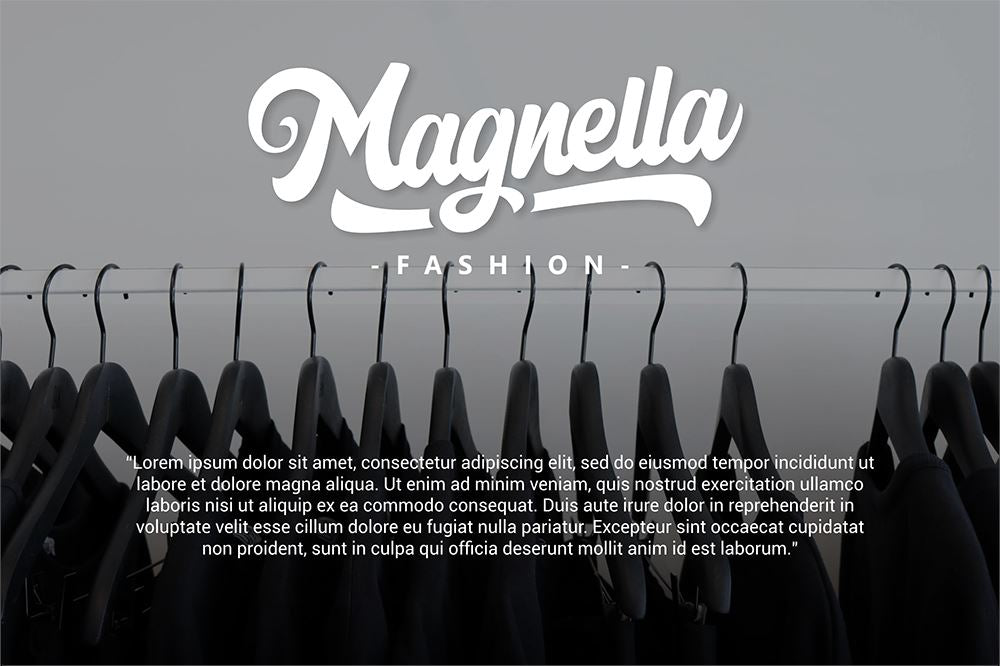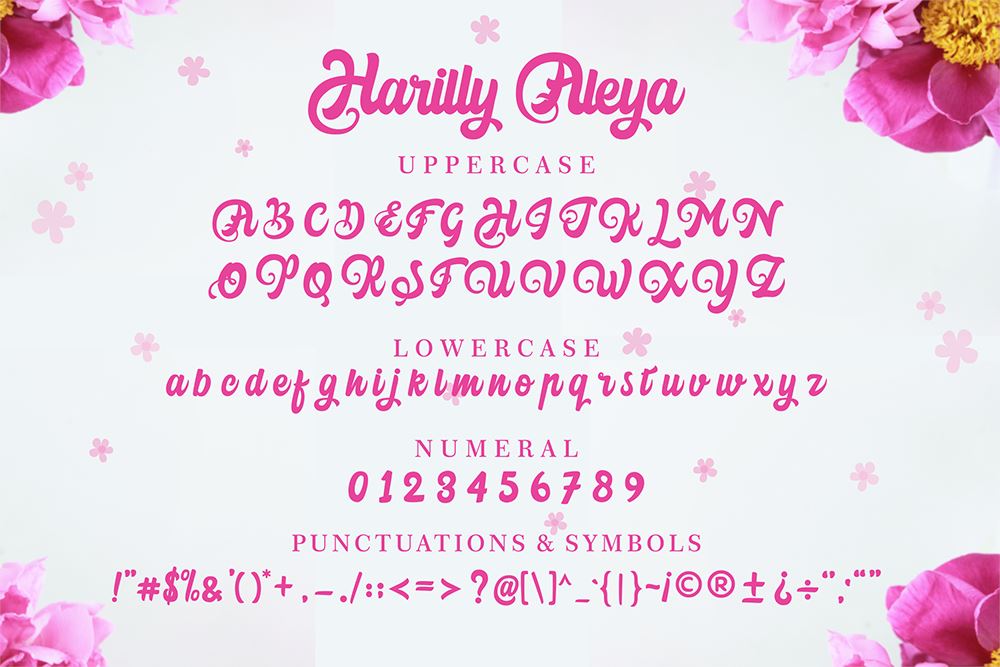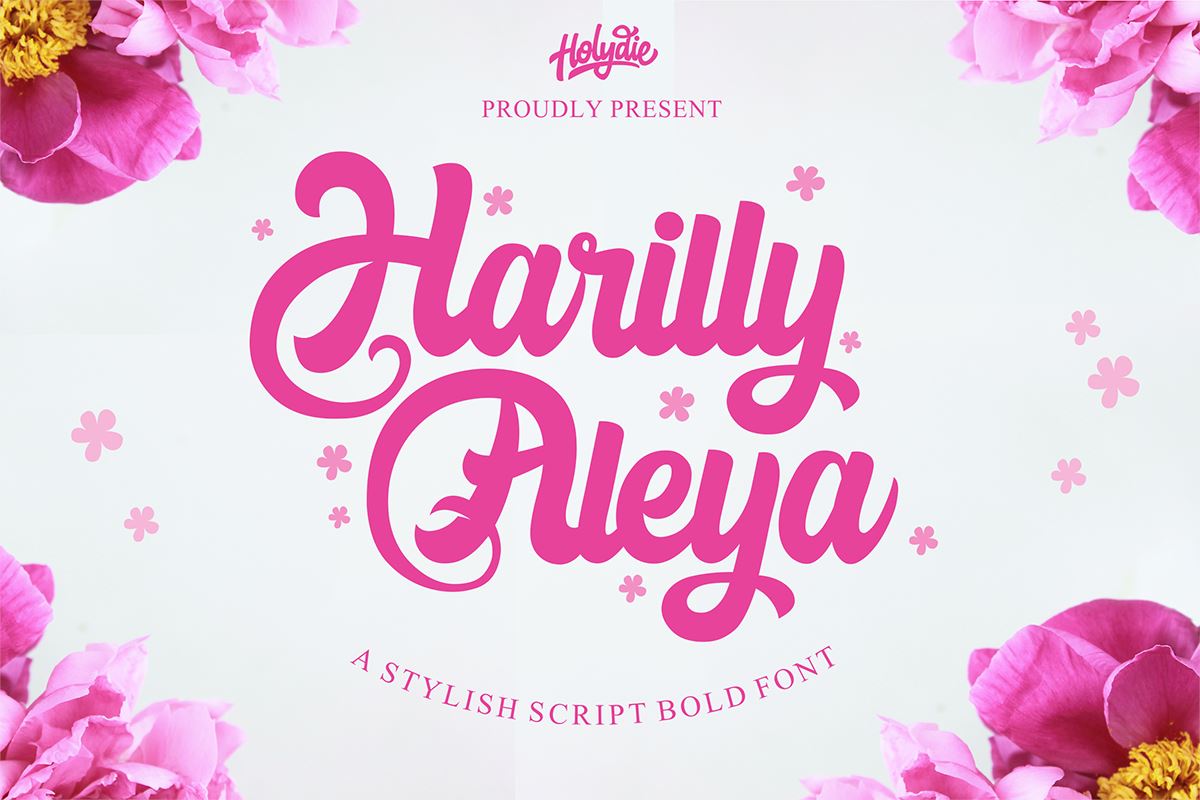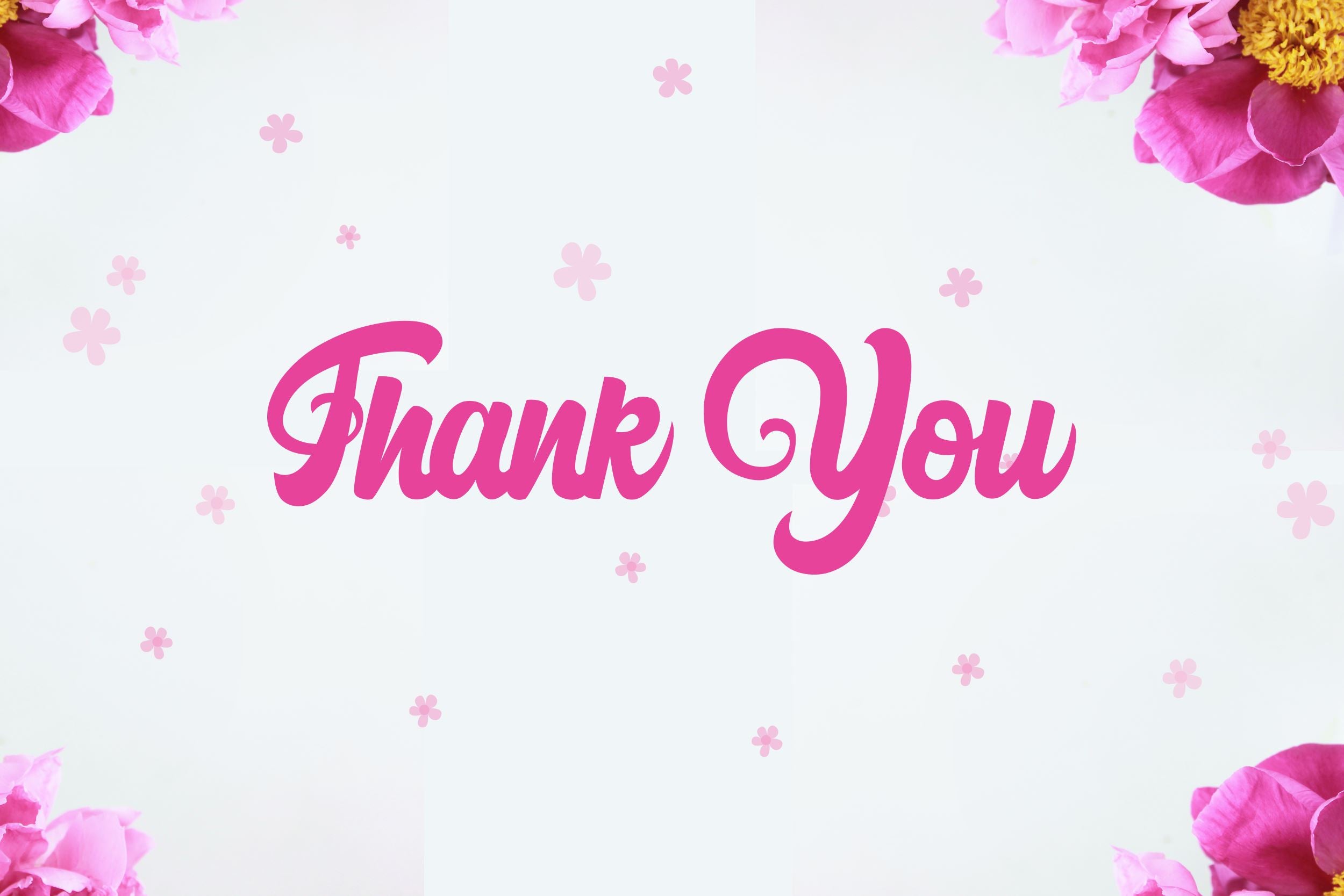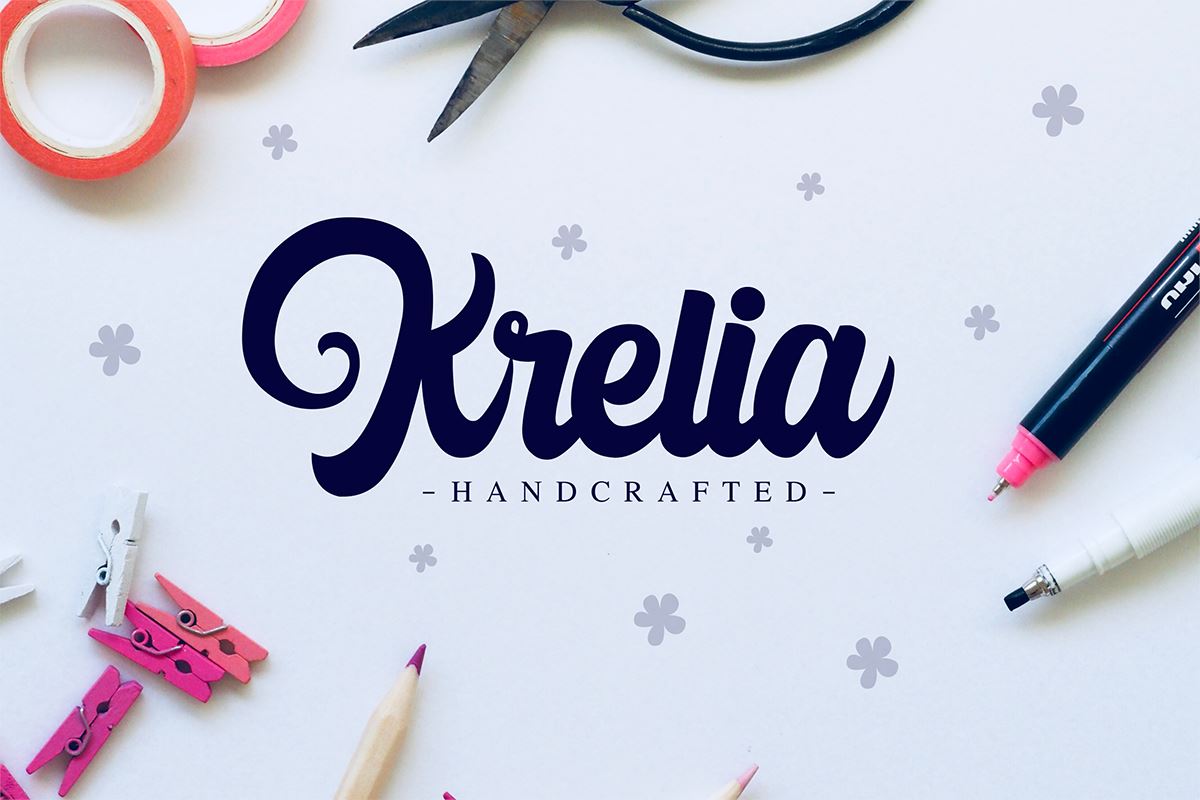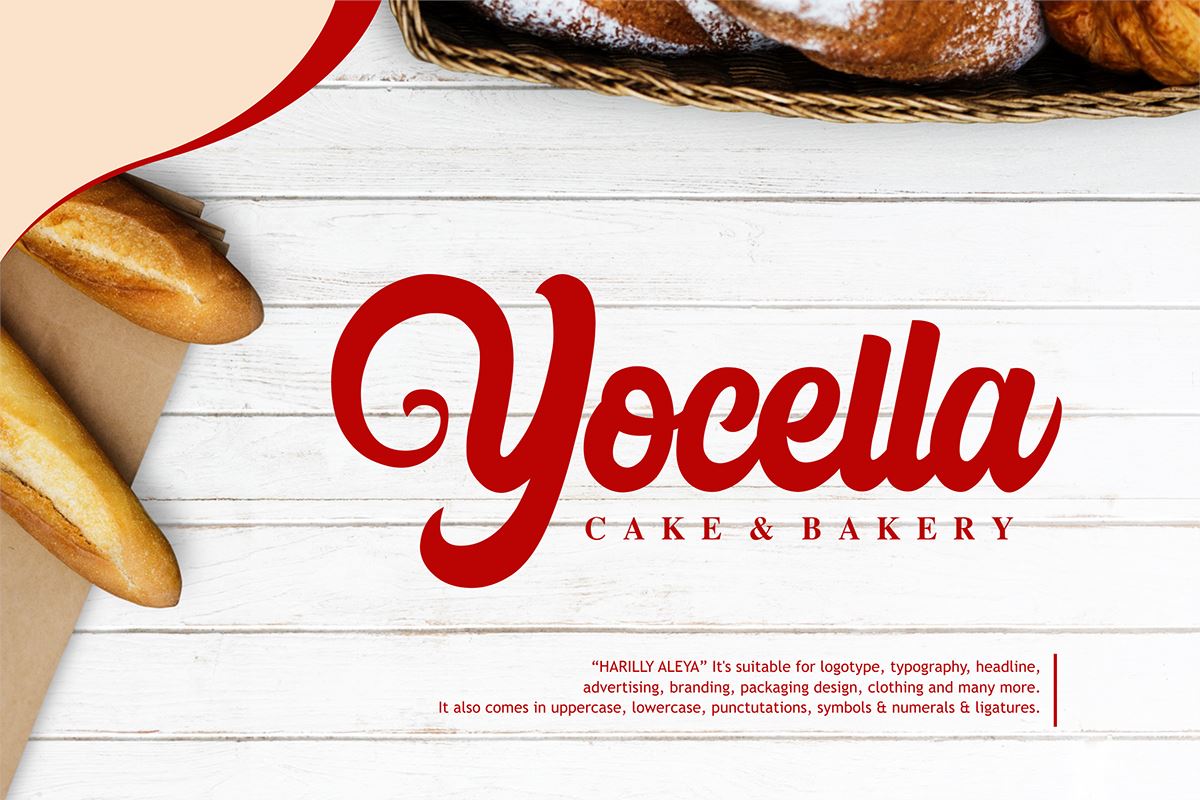
HomeScript FontsHarilly Aleya Script Fonts Harilly Aleya FacebookXPinterestWhatsApp 1 of 6 ... ... ... ... ... ... About Harilly Aleya is a bold font with a romantic twist. It will add a touch of elegance to any craft project! TTF & OTF Easy to Install Enjoy ! DOWNLOAD NOW People also explored Kasturi Font Meanwhile Handy Labels Font Meringold Font Wonder Day Font Heritage Monoline Calligraphy Font Minimalist Font Cenova Font Killer Font 210 0 TagsHarilly Aleya Previous articleHonestly BrigteaNext articleAmeliya LEAVE A REPLY Cancel reply Comment: Please enter your comment! Name:* Please enter your name here Email:* You have entered an incorrect email address! Please enter your email address here Website: Save my name, email, and website in this browser for the next time I comment. Personal Use Free Love Story Personal Use Free Read more about this font Euphorigenic Personal Use Free Read more about this font Hello Holiday Personal Use Free Read more about this font Harshita Personal Use Free Read more about this font BLOG Top 10 Handwritten Fonts That Elevate Your Designs Top 10 Handwritten Fonts That Will Elevate Your Designs Handwritten fonts bring a warm, personal touch to every creative project. Whether you're designing logos, invitations,... How to Cut Any Font on Cricut: Convert a Font to SVG (Free) Fonts That Capture the Spirit of New York City Best Fonts for YouTube Videos: Make Your Thumbnails Stand Out